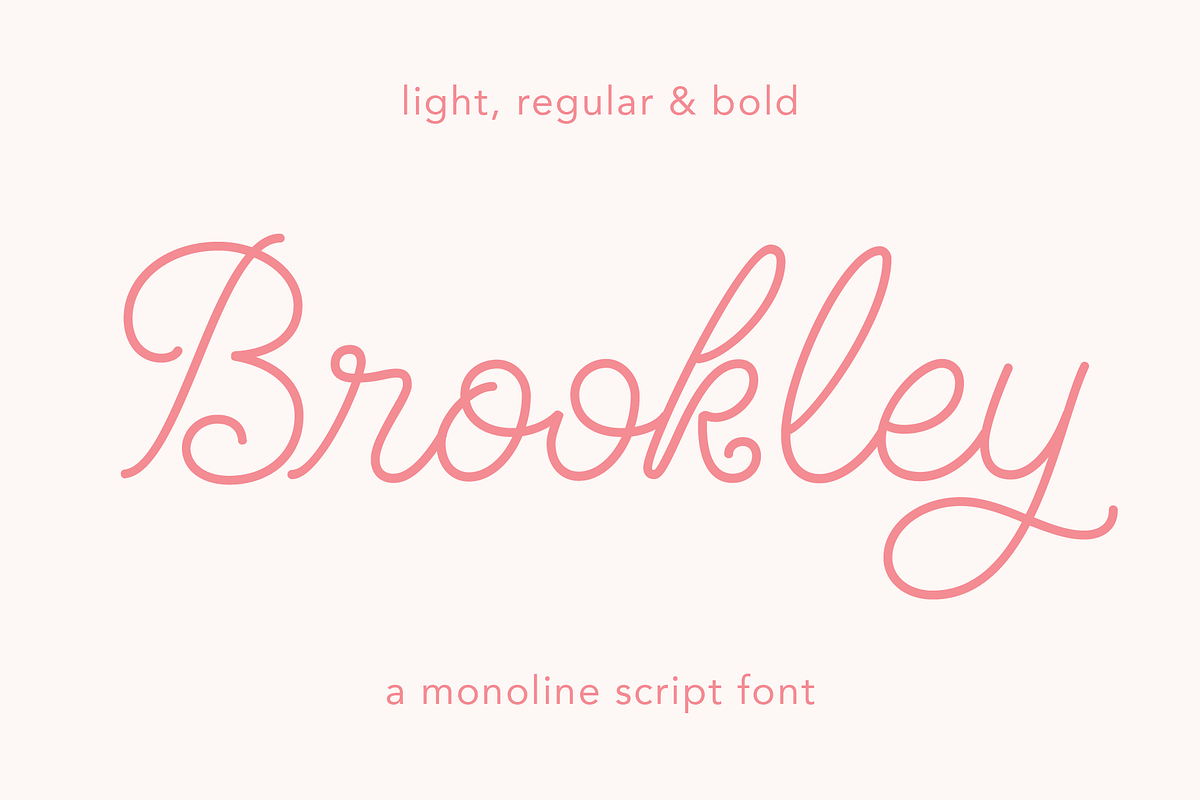
Brookley – Monoline Script Font Free Download is a clean and elegant handwritten font with a smooth, flowing monoline style. Please note: you must purchase this font for commercial use, but you can test it through a free download. With its effortless curves and minimalist charm, Brookley is perfect for logos, signature branding, wedding invitations, product packaging, social media content, and feminine design projects.
This font exudes sophistication and a handcrafted feel—ideal for creatives looking to add a personal, stylish touch to their typography. Whether you’re designing a chic brand identity or a heartfelt quote graphic, Brookley – Monoline Script Font Free Download delivers versatility and timeless beauty. Fully compatible with Adobe Illustrator, Photoshop, Canva, and other leading design tools. Download it today for personal use and let your designs flow with the graceful elegance of Brookley.